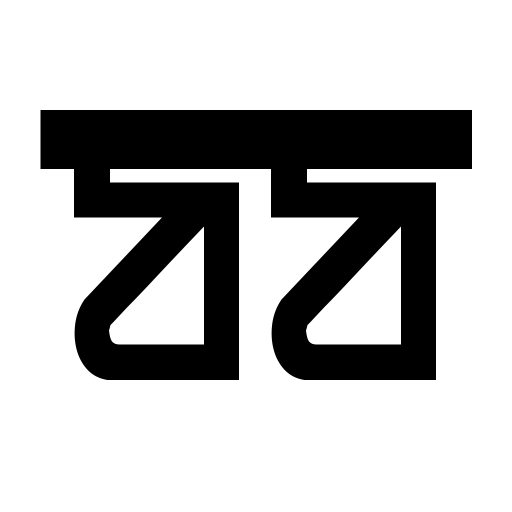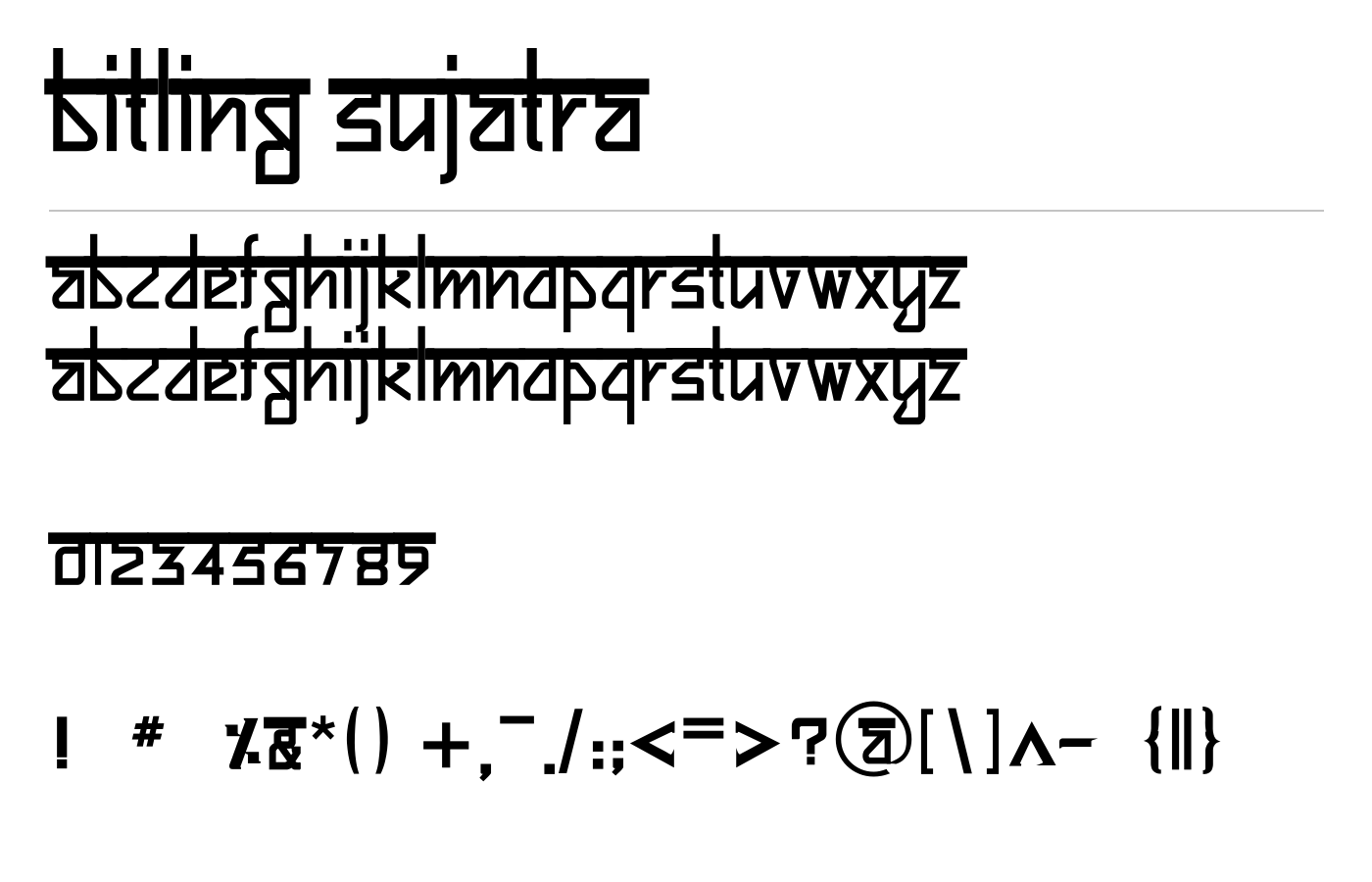
Bitling Sujatra is a modern, geometric sans serif font characterized by its clean, narrow letterforms and distinct horizontal lines that create a unique visual rhythm. Its monoline stroke weight and sharp, angular details give it a futuristic and technical feel, making it ideal for contemporary branding, digital interfaces, and creative headlines. This font shines in designs seeking a bold, innovative look with a strong structural presence.
Bitling sujatra Font